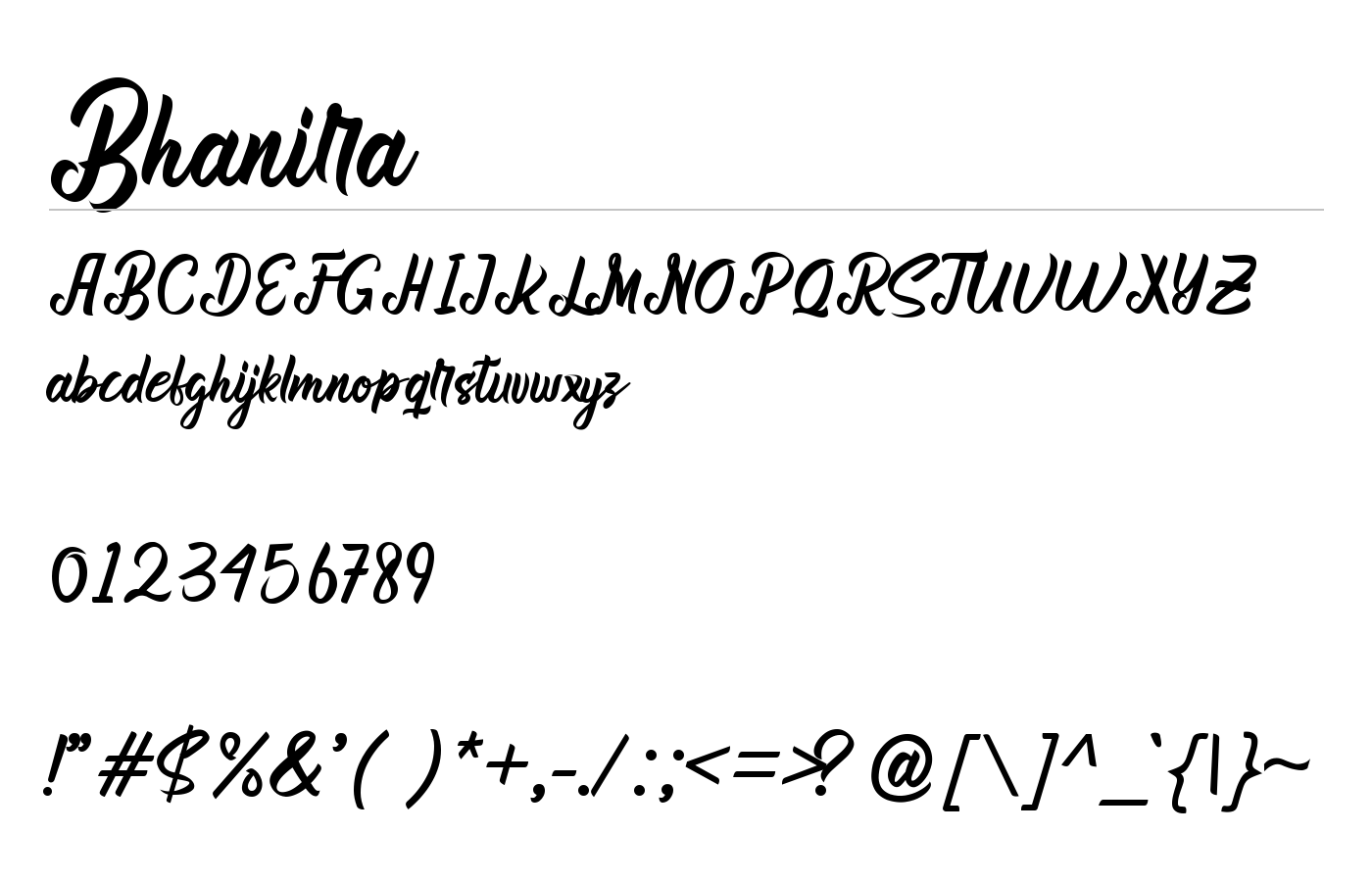
Bhanira is a lively script font with a smooth, flowing style that combines elegance with a playful, handwritten feel. Its moderate contrast and slightly condensed letterforms make it perfect for creative branding, invitations, and eye-catching headlines, adding a warm and personal touch to any design. This font works well where a stylish yet approachable personality is desired.
Bhanira Font